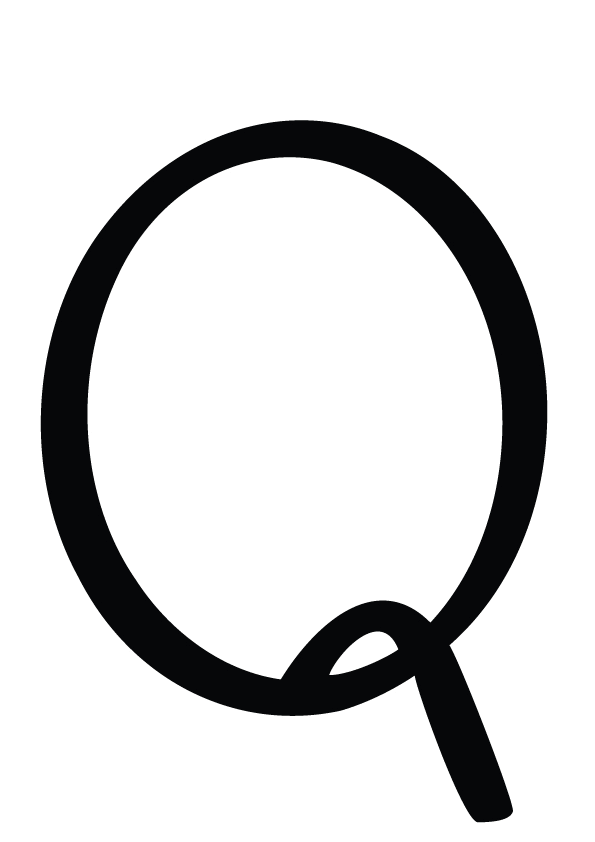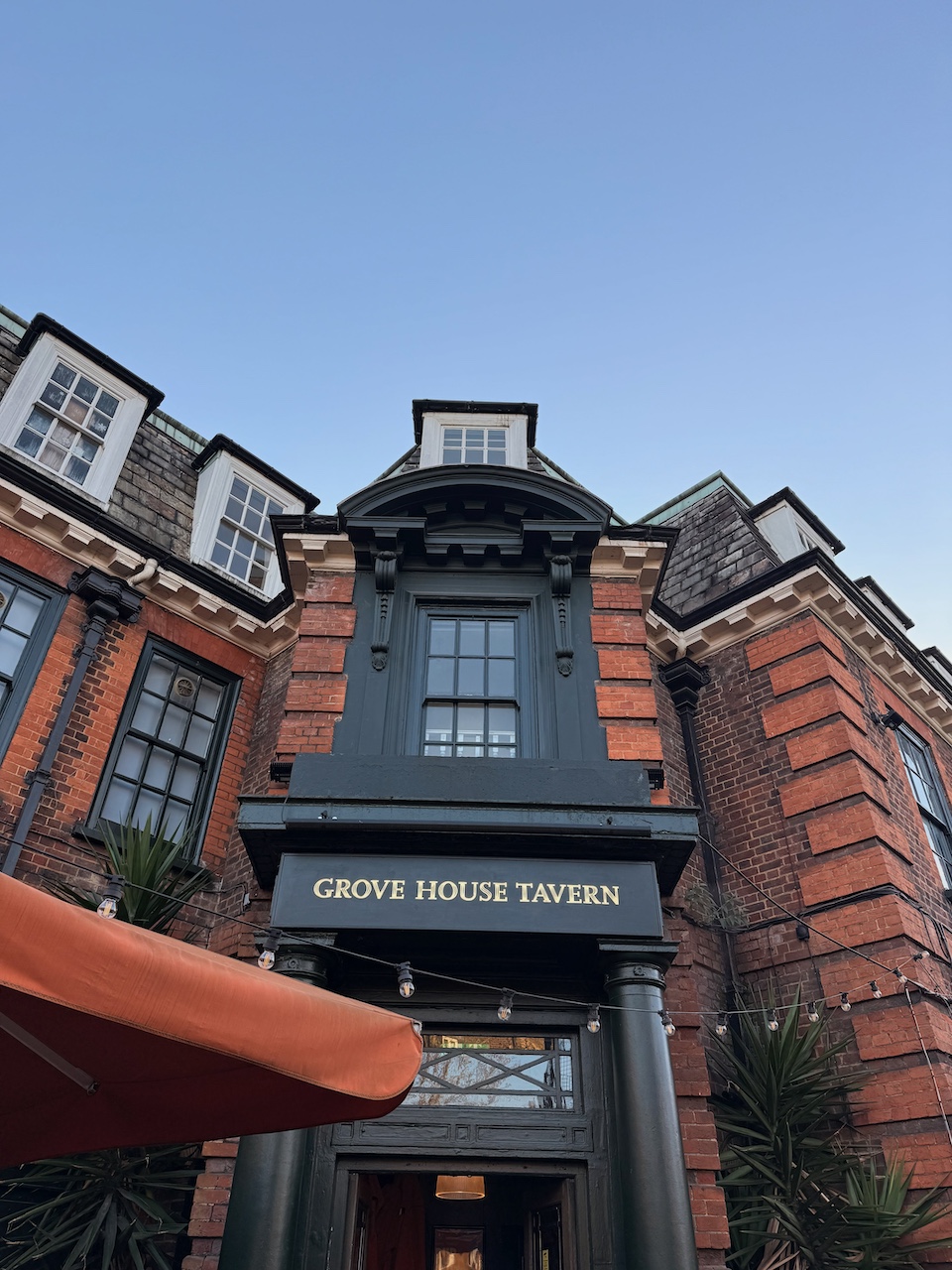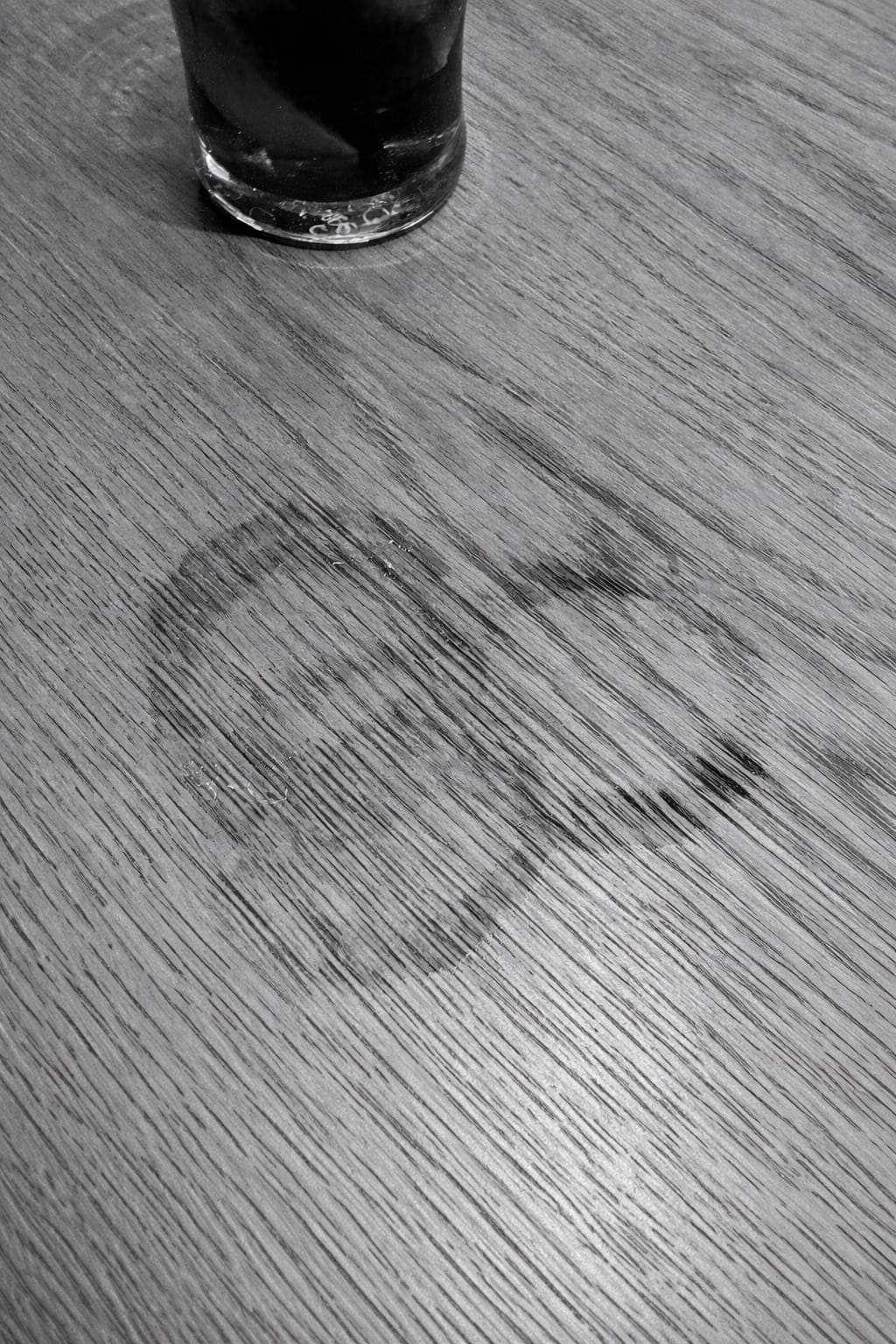
My typeface, The Local, was inspired by the Grove House Tavern pub in Camberwell. While researching the location, I explored the role of third spaces in society and how pub culture in Britain has played an integral part in this. I took inspiration from the water ring left by a pint on a pub table, which symbolises the importance of using these spaces and their deeper purpose in modern society: to slow down, enjoy, and appreciate. To create this, I used variations of circles and a warped stroke style, echoing the worn wood of a pub table.